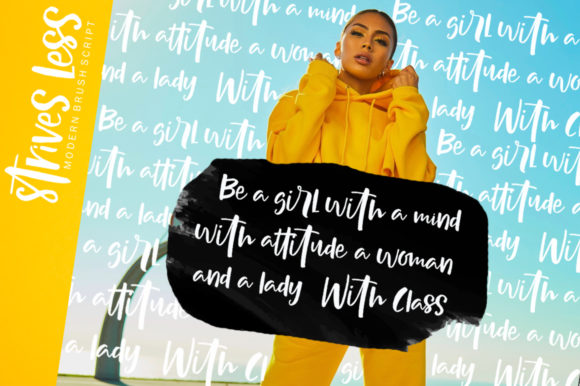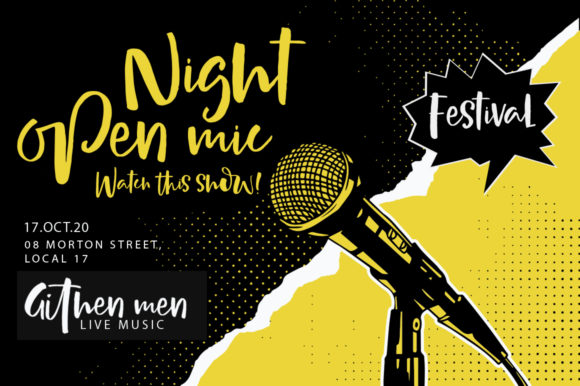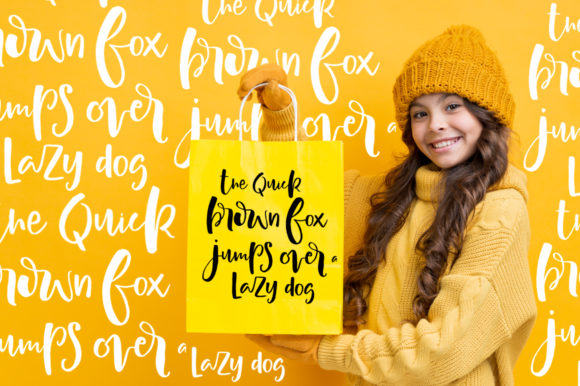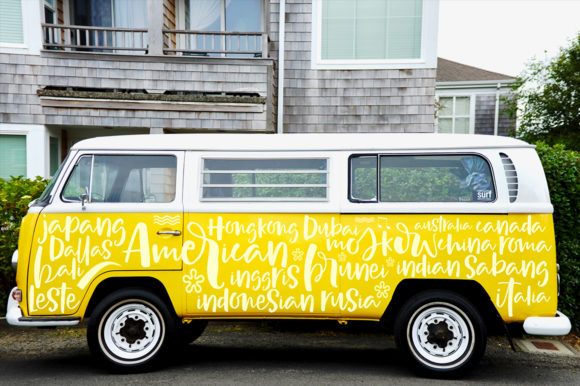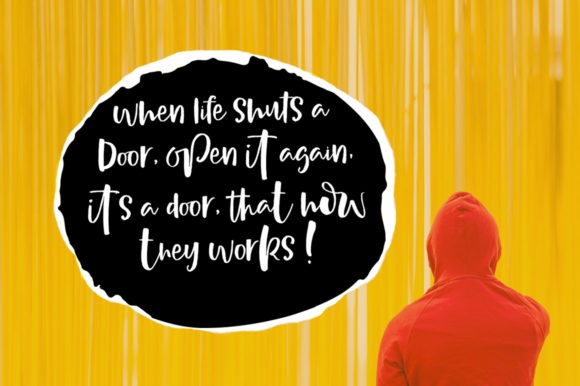
Strives Less Font
About Strives Less Font
Strives Less looks bold, yet sophisticated and features authentic and extended characters that will look particularly adept when used in logos, branding, packaging design, and much more. This masterfully designed Strives Less is a true must-have.